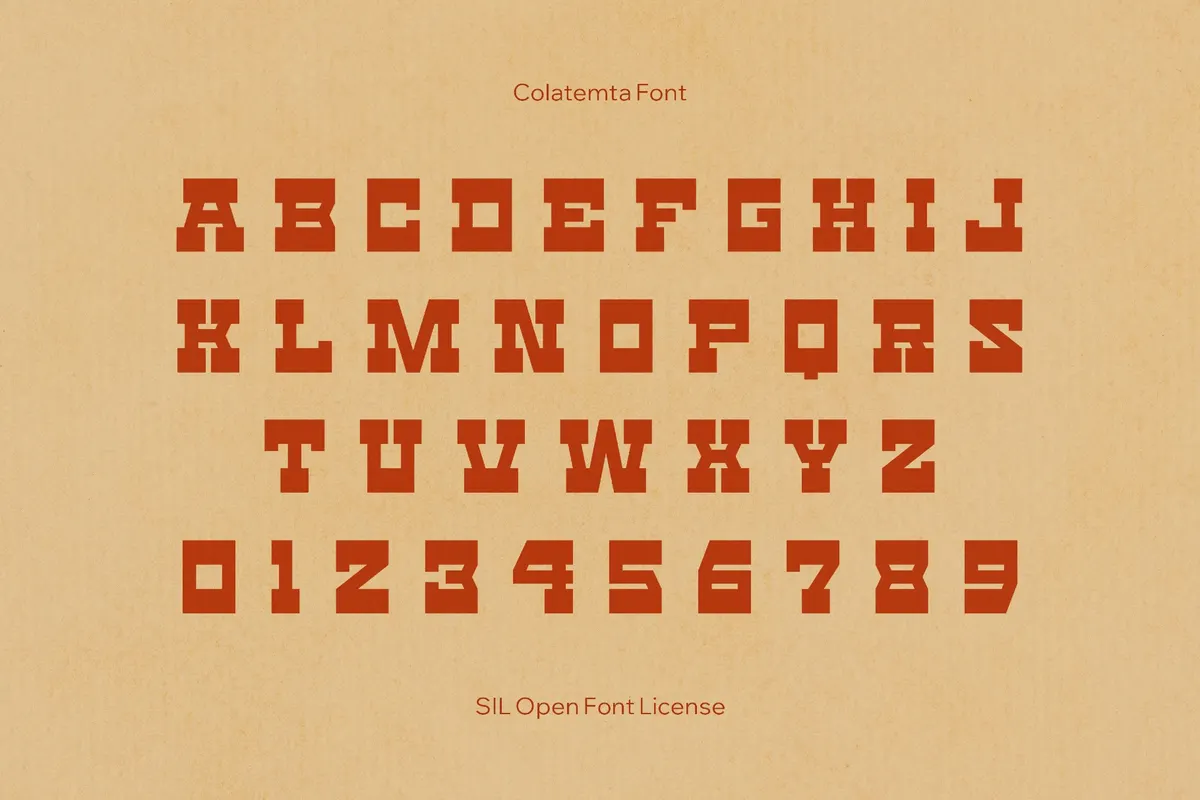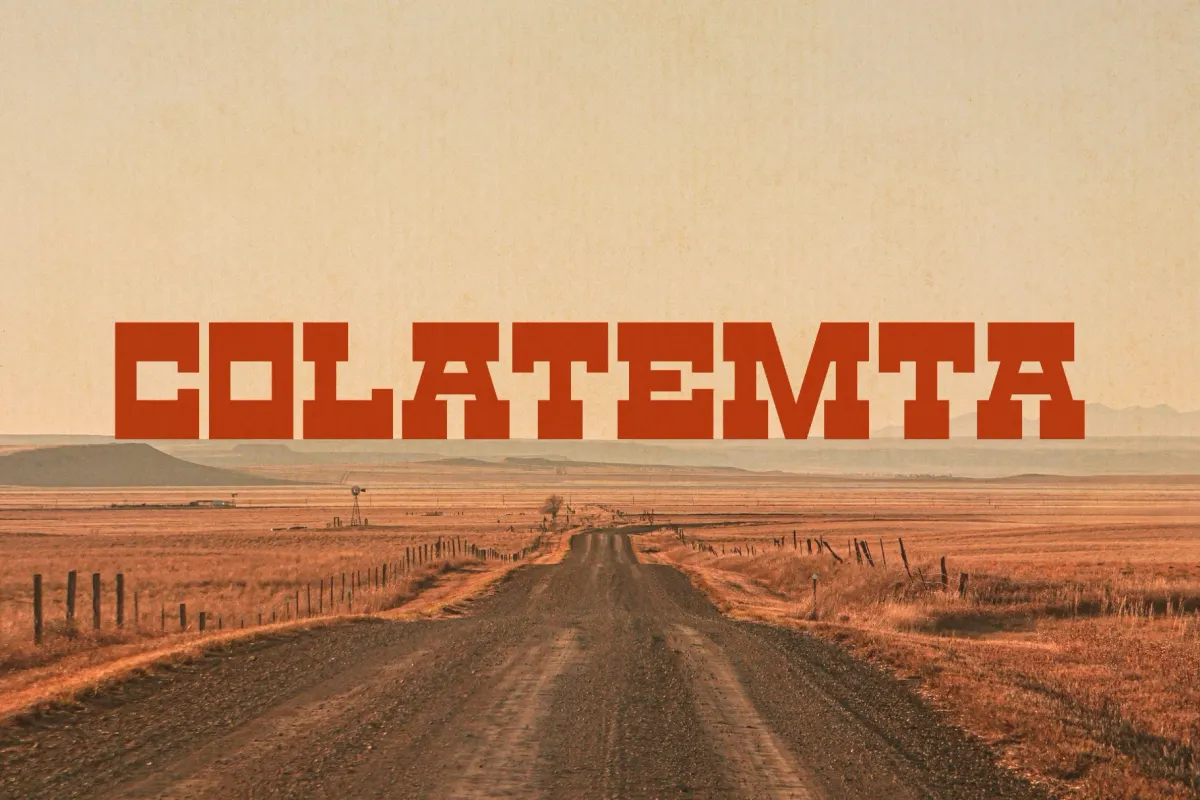
Colatemta Font
Colatemta
Colatemta has a playful, hand-cut energy typical of mid-century sign painting and pop-era packaging. The rounded blocky strokes, tight spacing, and sharp edges read quickly at display sizes. It’s well-suited to café and food branding, kids’ products, casual logos, posters, apparel graphics, and social media headlines. It also lands nicely in stickers, short editorial titles, and event promos.